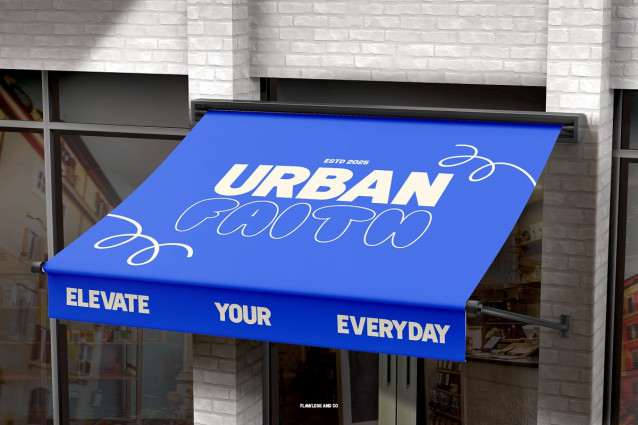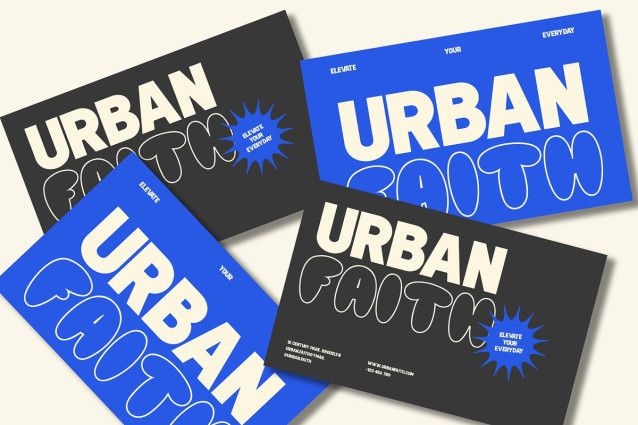
Noister Font
Noister Font is a modern display duo font designed to bring playful contrast and bold personality into your designs. Combining two distinctive styles in one typeface, Noister creates eye-catching typography that feels fun, expressive, and full of energy. Its strong main characters paired with a complementary secondary style make it easy to build dynamic layouts, standout headlines, and memorable brand identities. Whether you’re designing logos, posters, packaging, or social content, this duo font helps your message feel more engaging and visually balanced.